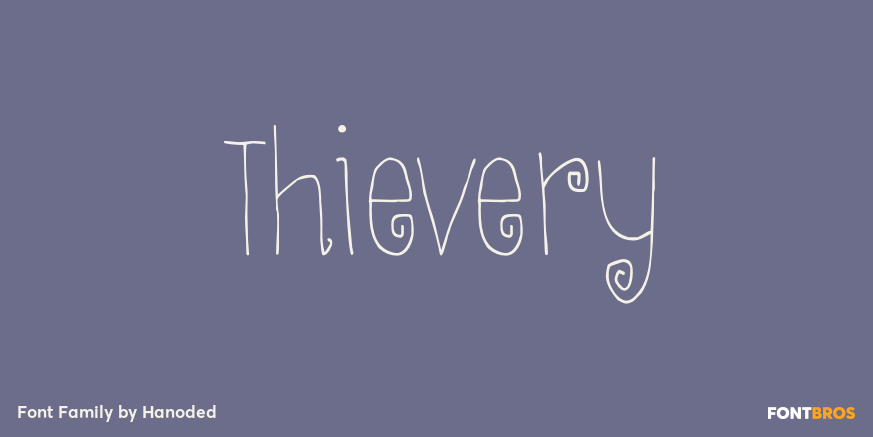
HomeFont BrosHandwrittenThievery HandwrittenWacky Thievery FacebookXPinterestWhatsApp 1 of 1 About Thievery The idea behind Thievery? is that there is no idea behind it. Thievery is just a nice, legible, happy typeface. It is hand made, has lots of curly swirly bits and looks good as well. So? grab it and run!  DOWNLOAD ON FONT BROSThis font is sold and delivered by Font Bros. Font Canyon may earn a commission if you buy through this link. People also explored Lettering Font Crenate Font Lloisanne Font Wobegone Équipage Apple Chunky Font Sunset Font Leibra Duo Font Sandstone Font 219 0 TagsThievery Font Previous articleVedoNext articleHaesley LEAVE A REPLY Cancel reply Comment: Please enter your comment! Name:* Please enter your name here Email:* You have entered an incorrect email address! Please enter your email address here Website: Save my name, email, and website in this browser for the next time I comment. Personal Use Free Choco Shake Font Personal Use Free Read more about this font Shelly Personal Use Free Read more about this font Alnair Star Personal Use Free Read more about this font Vanity Personal Use Free Read more about this font BLOG 5 Fonts That Will Dominate Design Trends in 2026 5 Fonts for 2026 That Will Dominate Design Trends Typography plays a critical role in visual communication, and as we look ahead to 2026, it’s... To increase your work productivity, choose the most readable fonts. Where to Buy American Fonts Online in 2024 The 10 Best Handwriting Fonts to Add Personality to Your Designs